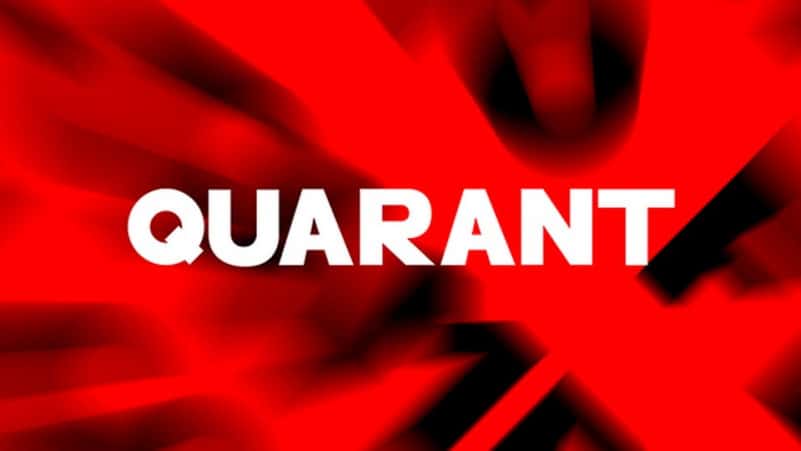
Quarant Sans Serif Font
Introducing Quarant Sans Serif Font inspired by the famous minimalist logo, a free robust all-caps font for poster design, clean typographic motion graphics, titles and more… Inspired by contemporary type design, motion graphics and classic Italian aperitif bitters. perfect for the purposes of designing templates, brochures, videos, advertising branding, logos and more.